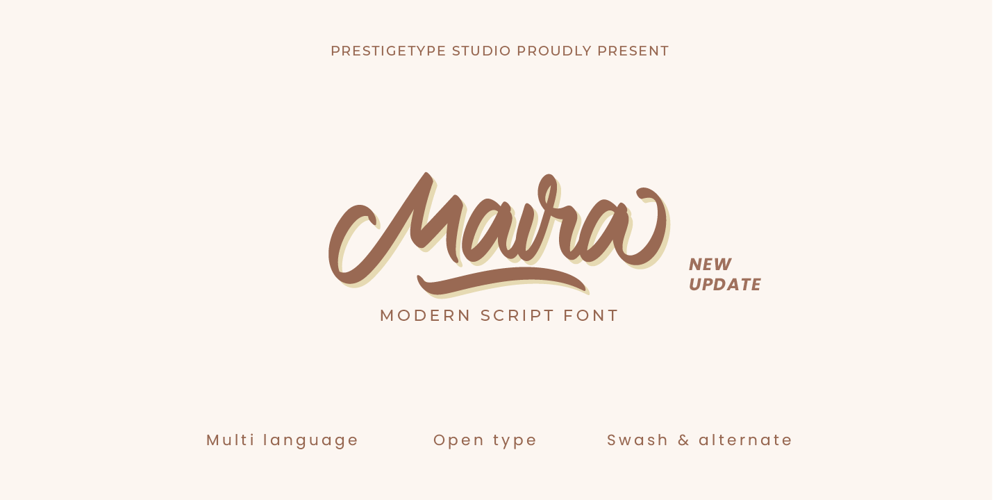
Maira Font Family was designed by Mohamad Ridwan and published by Prestigetype Studio. Maira contains 1 styles and family package options. Beauty can change the perspective of the target audiences. Choose the right typeface to represent the beauty of your brand. Introducing Maira is a beautiful and versatile script font, with a careful touch of every single curve. Maira font has a beautiful and neat form so it can be easily read. Maira has a ton of alternate characters and bonus swash, making this font perfect for your branding project. It is suitable for use as a logo, Title, business cards, T-shirts, posters, printed quotes, wedding invitations, or any advertising purposes.Maira includes:numbers and punctuationmultilingualligaturesalternatesswashopentype featuresWe highly recommend using a program that supports OpenType features and Glyphs panels like many Adobe apps and Corel Draw so you can see and access all Glyph variations.We hope you enjoy our font – please do let us know by emailing us at info@prestigetype.com or prestigetypestudio@gmail.com if you need something!